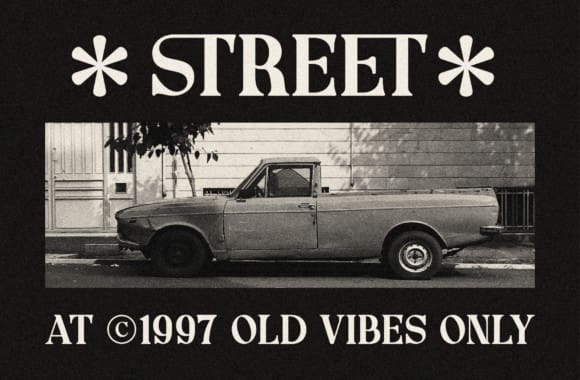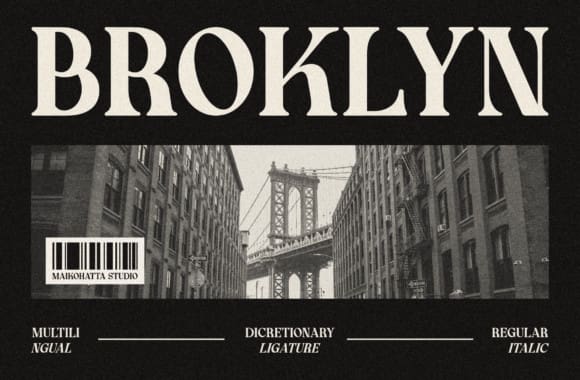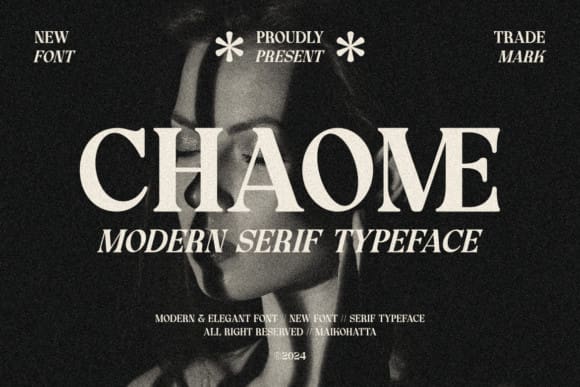
Chaome Font
Chaome Font is a stylish font that brings a touch of elegance to your text. With its modern twist on traditional serif fonts, Chaome adds a classy and sophisticated vibe to any project. Easy to read yet full of personality, it’s perfect for adding a professional flair to your designs.